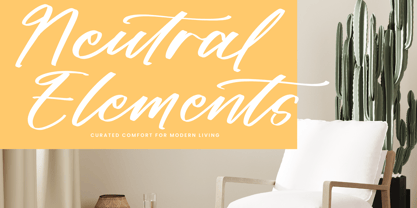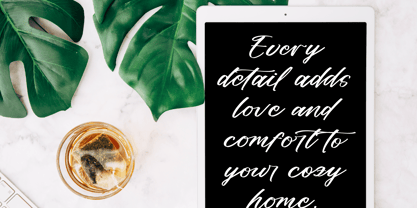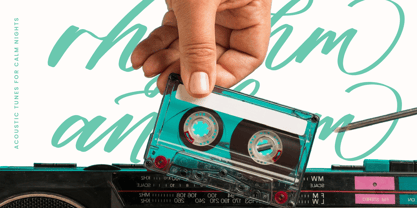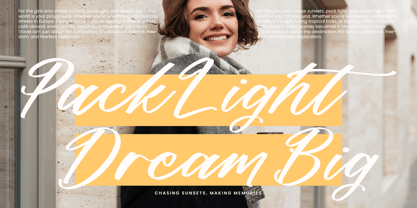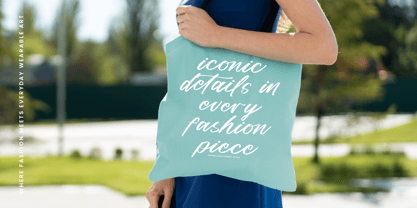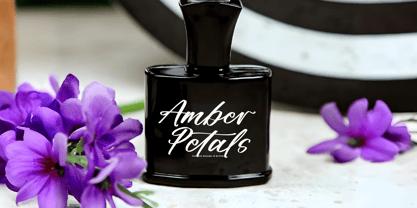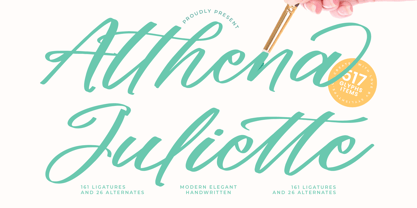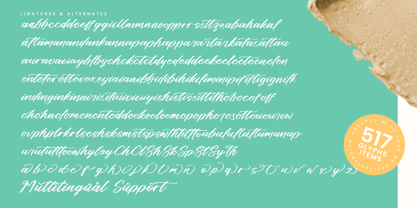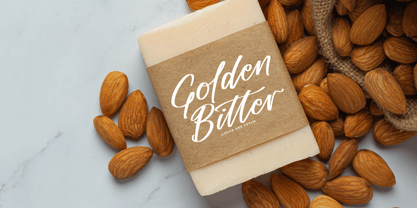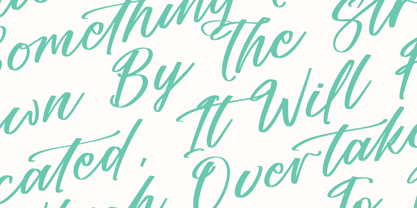
Althena Juliette
The Althena Juliette Font Family was designed by Heru Utama Putra and published by Stylishtype Studio. Althena Juliette contains 2 styles and family package options.
Althena Juliette - Modern Elegant Handwritten , from Stylishtype, Suitable for any projects such as: logos, branding projects, homeware designs, product packaging, mugs, quotes, posters, shopping bags, t-shirts, book covers, name card, invitation cards, greeting cards, label, photography, watermark, special events, and all your other luxury and beautiful projects that need a Luxury Script taste.